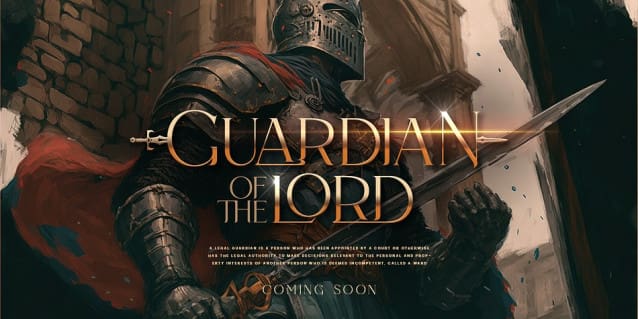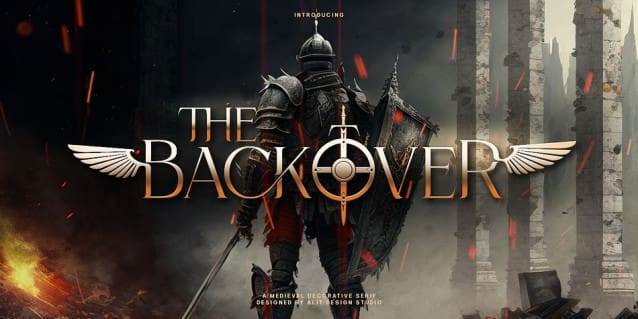
The Backover Font
The Backover Font – Unleash the Power of Words with a Heroic Twist! Immerse yourself in the epic realm of typography with our latest creation, the “Backover Typeface.” Inspired by the valor of superheroes and the chivalry of knights, this font is a visual journey into the heart of heroic tales.